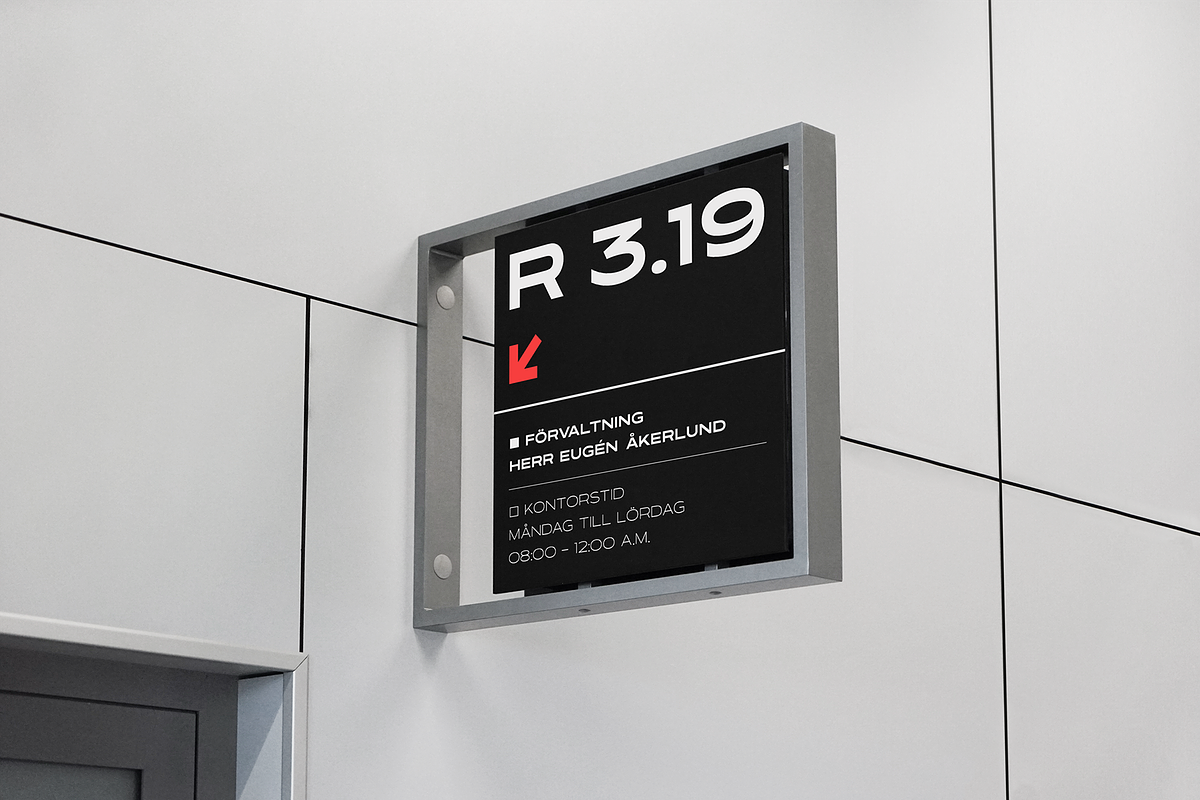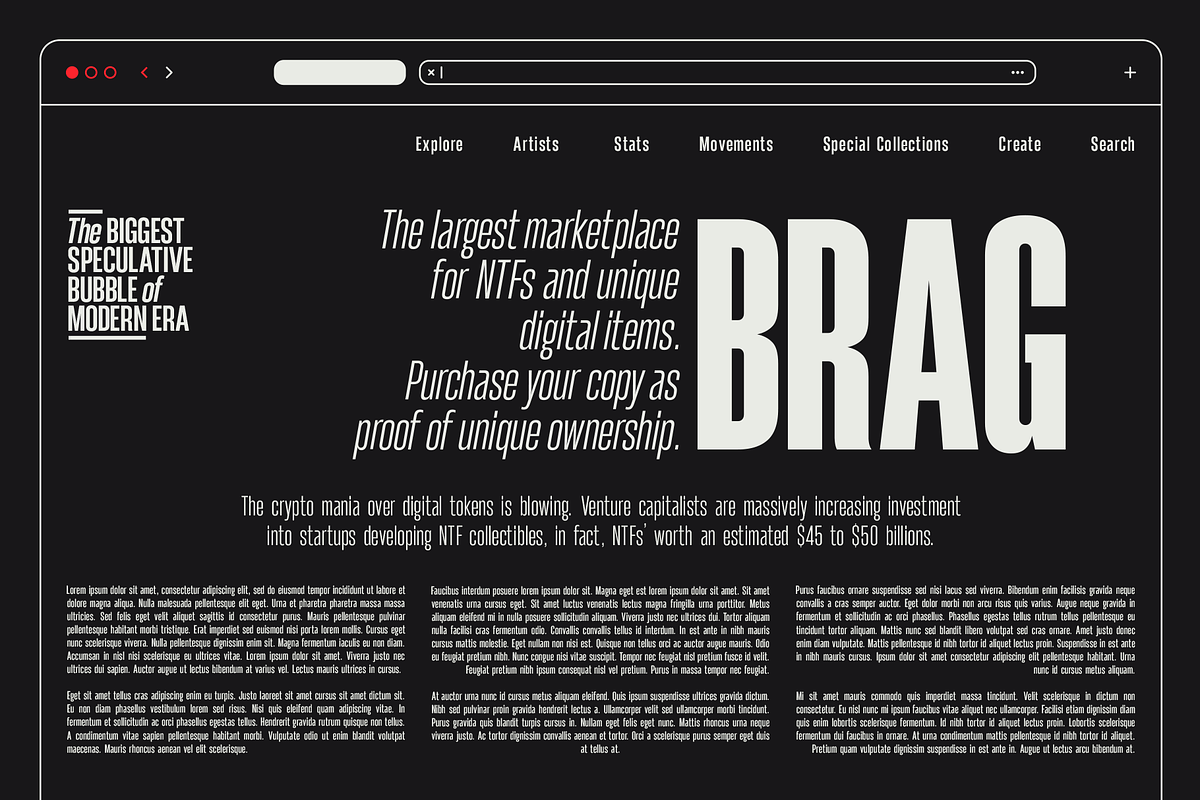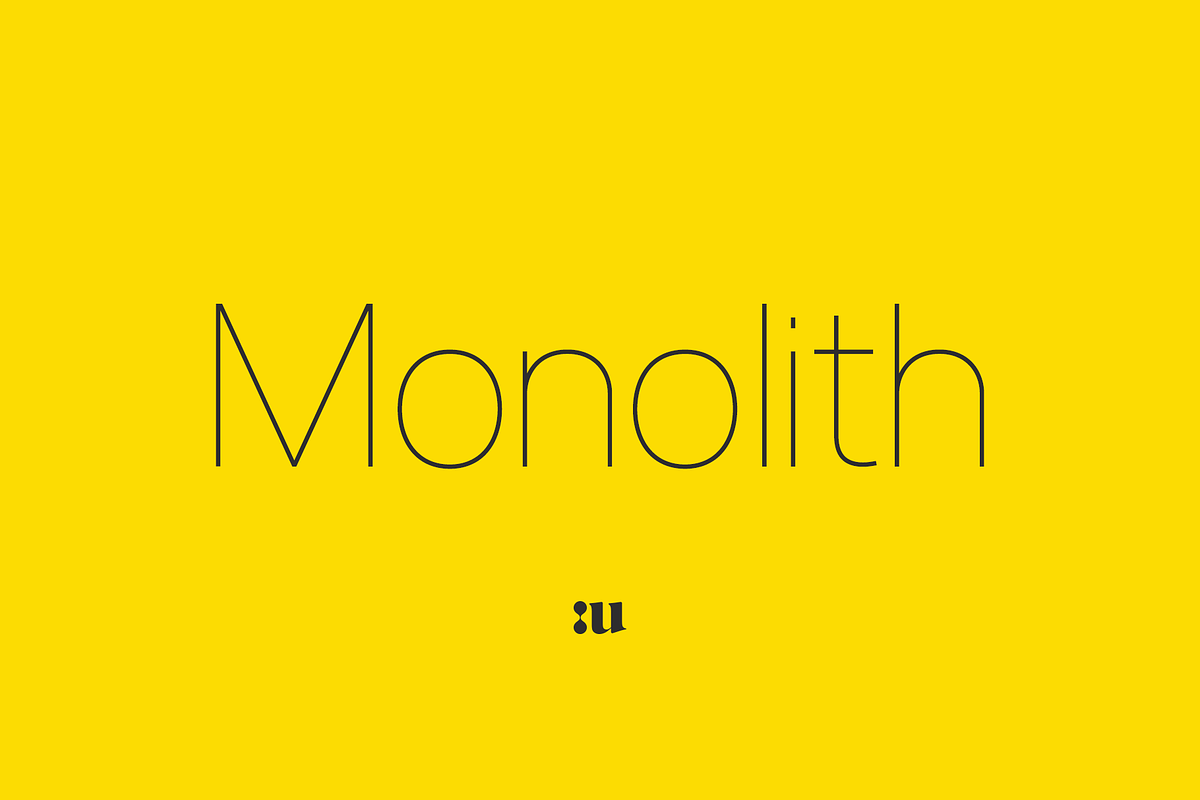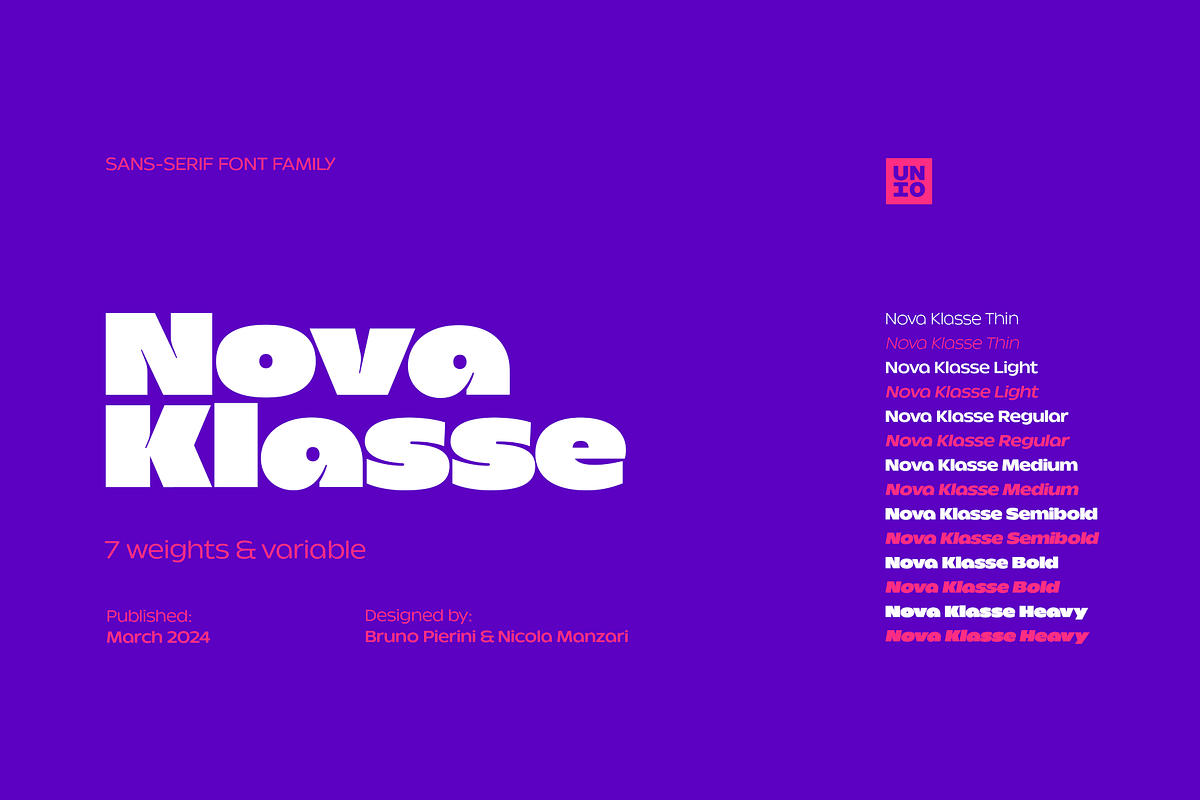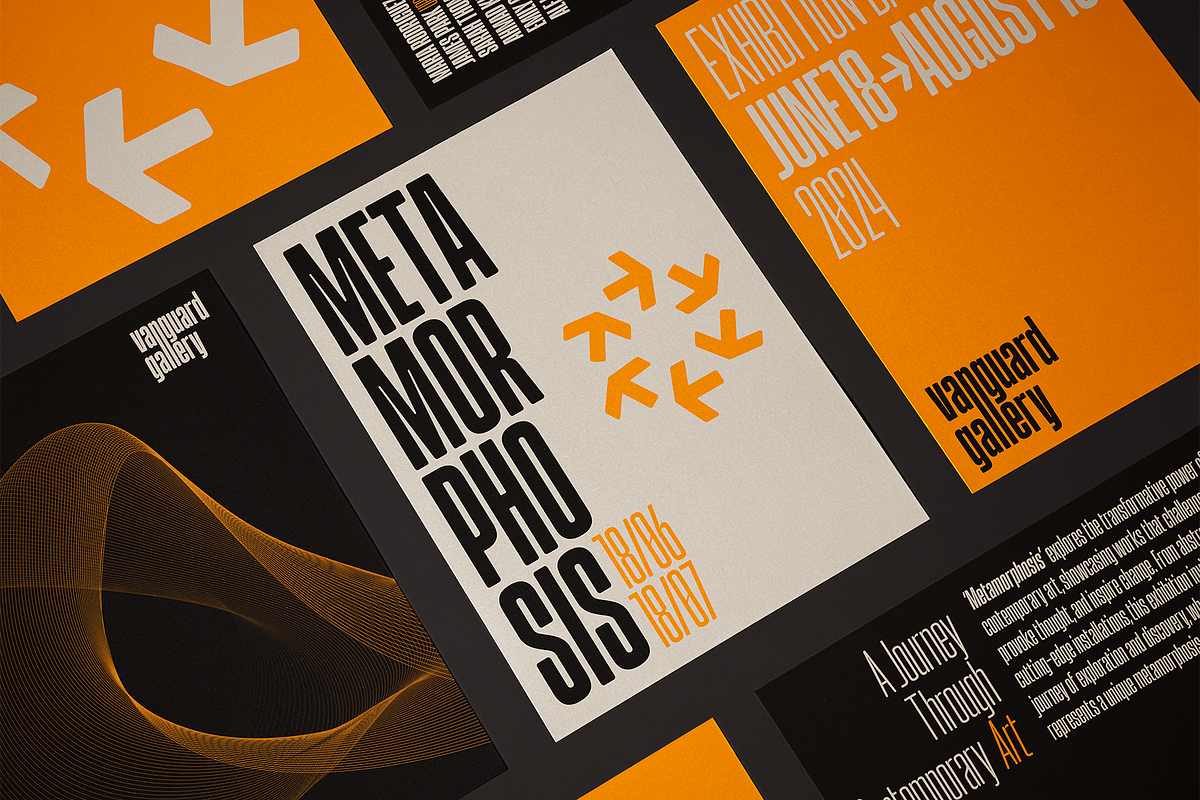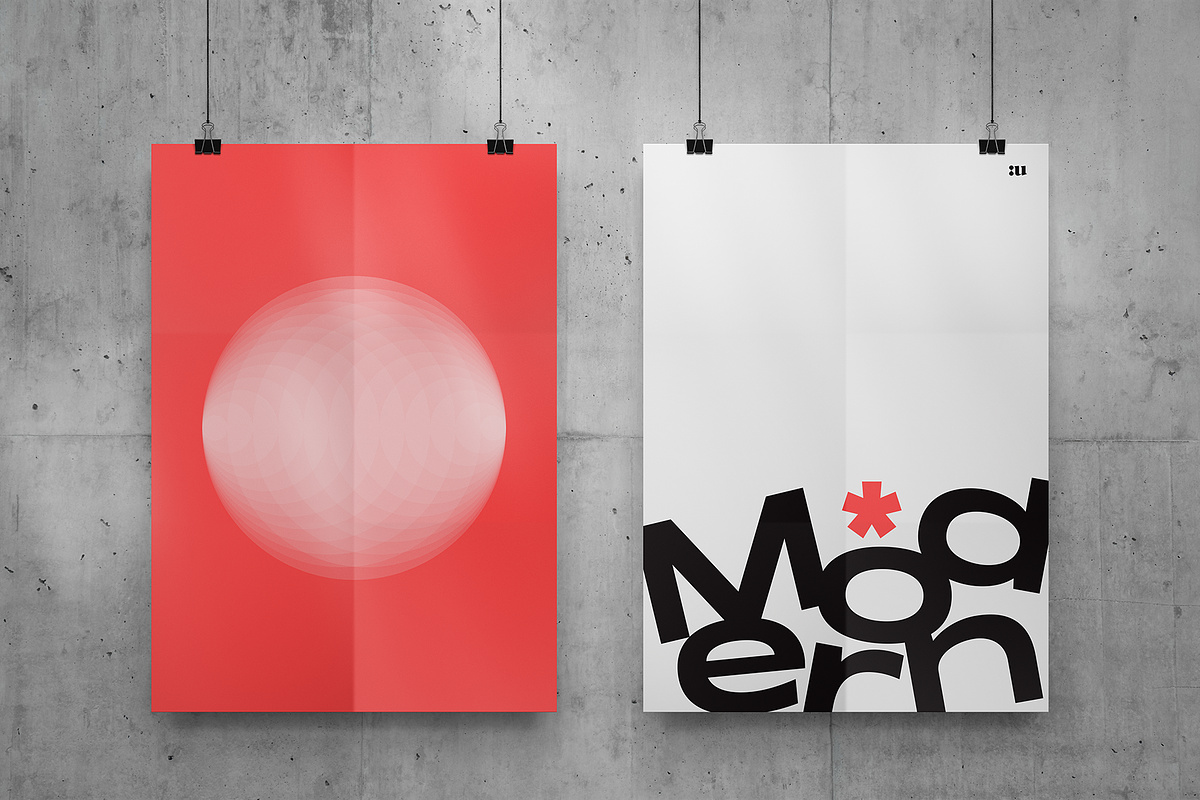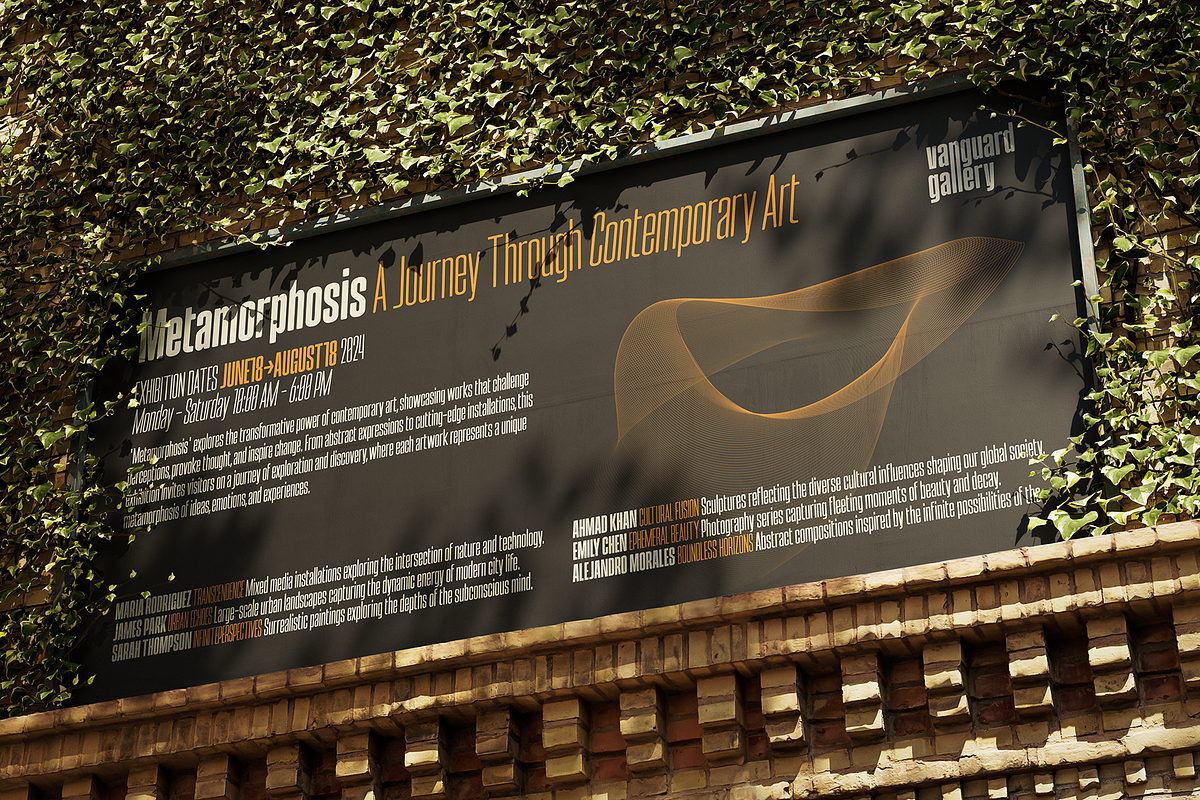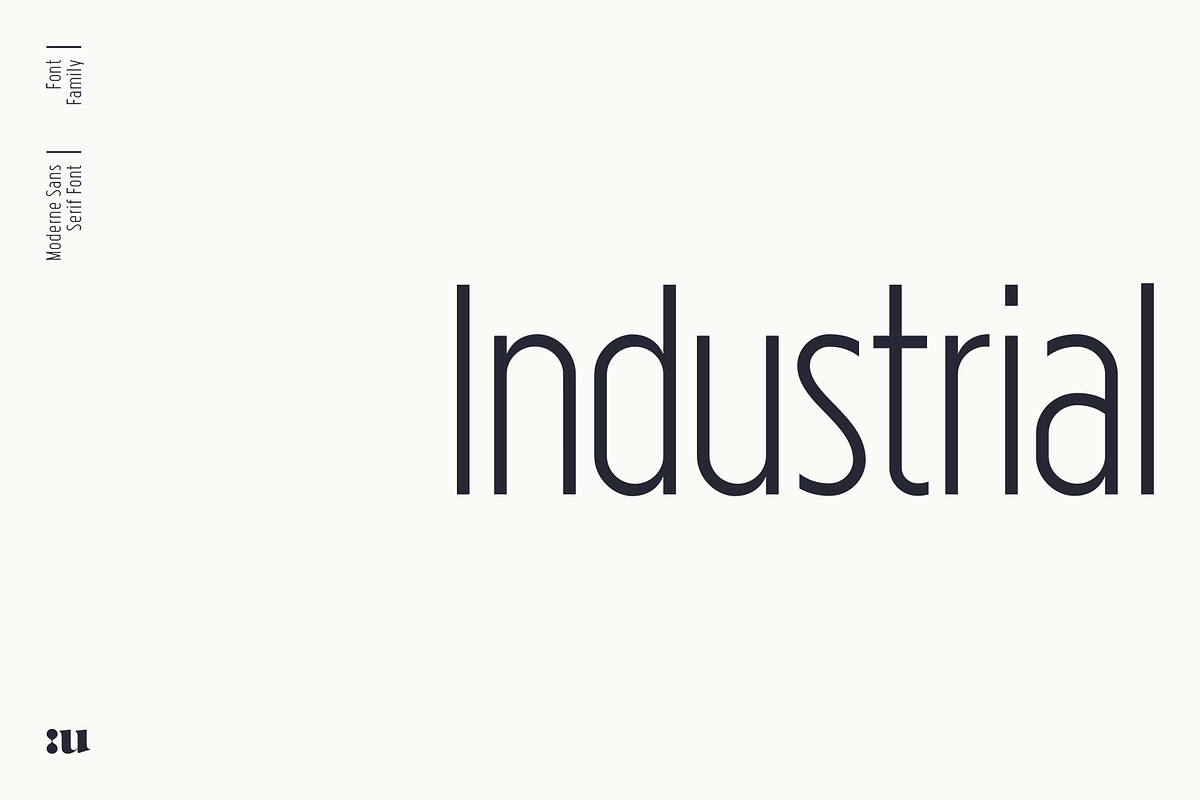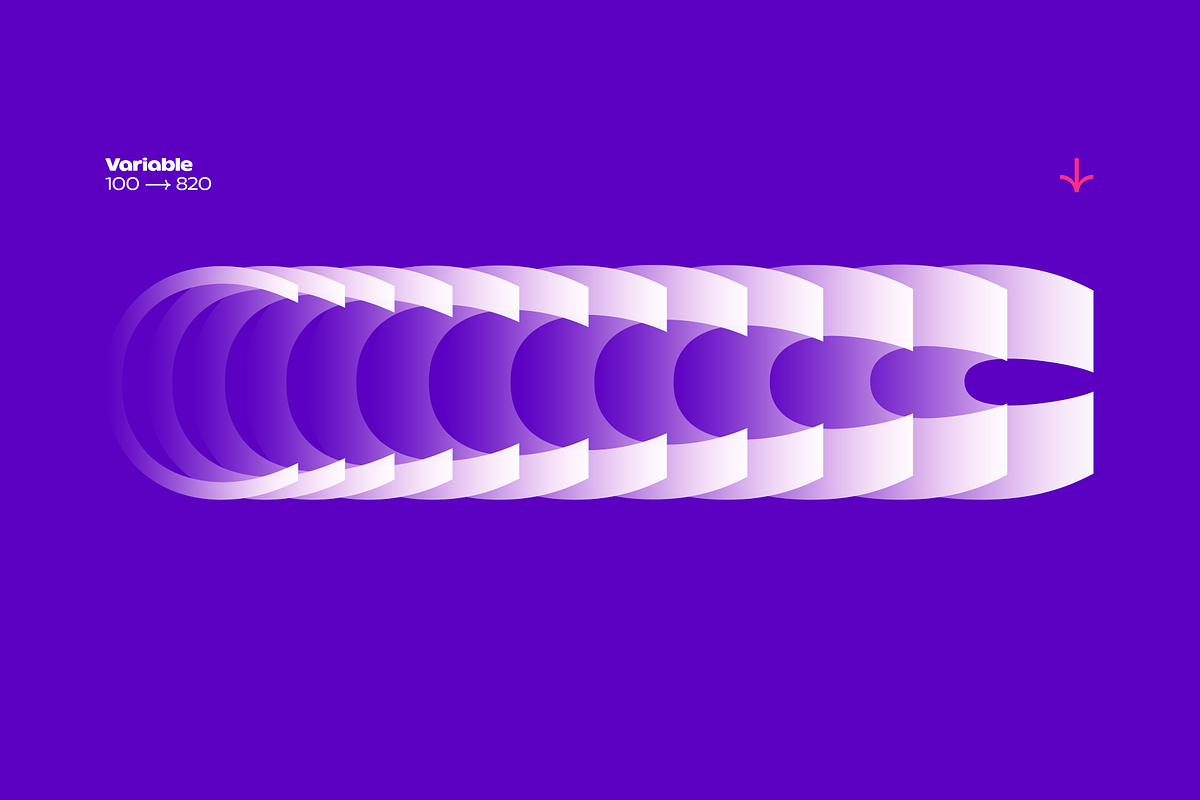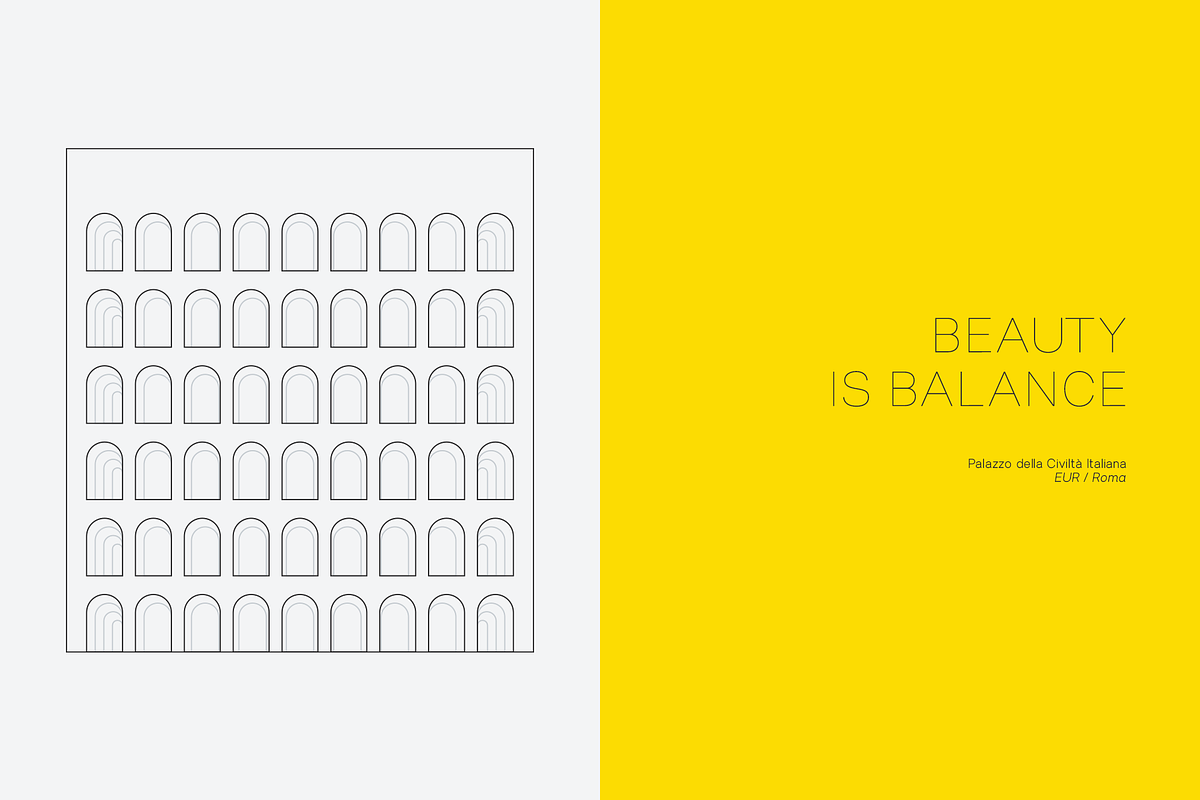
The Sans Bundle - 6 Complete Fonts
Elevate your design game with The Sans Bundle, a curated collection of six modern typefaces crafted for versatility, performance, and visual impact — all for just $60. Whether you're shaping brand identities, building websites, or designing standout editorial pieces, this bundle gives you the tools to do it all in style.
What’s Inside:
- Tallica
- Nova Klasse
- Aeternus
- Kinetica
- Industrial Sans
- Monolith
✨ Built for Designers Who Demand Versatility:
- Branding & Packaging – These clean, modern sans-serif fonts provide sharpness and clarity, perfect for high-end and bold brands alike.
- Web & UI Design – With strong rhythm and optimal legibility, they bring a sleek, user-friendly vibe to websites and apps.
- Editorial Projects – Designed for maximum readability while adding a contemporary edge, these typefaces shine in both print and digital publications.
- Posters, Portfolios & Social Media – Make a statement with minimalist typography that exudes confidence and modernity.
- Logo Design – Create striking, memorable logotypes with the help of clean lines, alternates, and subtle ligatures.
This isn’t just a font bundle — it’s a design toolkit. These typefaces were built with attention to detail, flexibility, and global reach in mind. Whether you're working on print or digital, English or multilingual content, you’ll find yourself reaching for this bundle again and again.